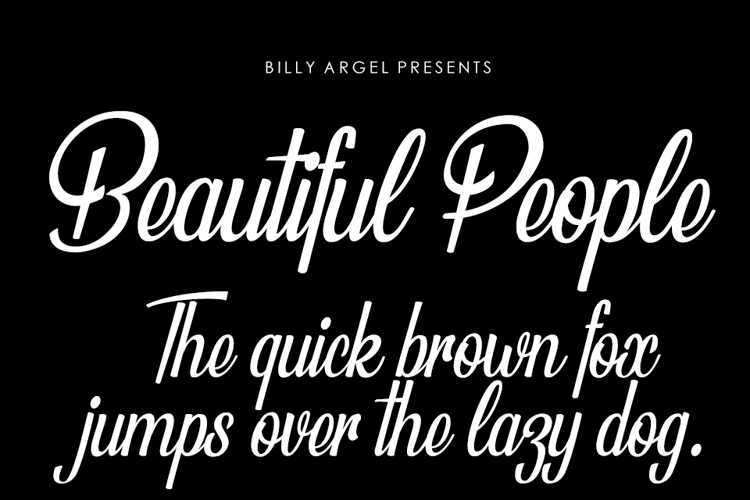
Beautiful People Font
this font is pretty and simple!
Nice font style....i like it...
The font is amazing
As soon as I came across this font, I loved it! This is an amazing font and I've been looking for fonts like this one!!!
No numbers, can't use.
Amazing
muy buena esta fuente para hacer diversas letras .
i like this one.. very cool, Thanks!
Just found this site! Love this font!
Nice font
I luv it